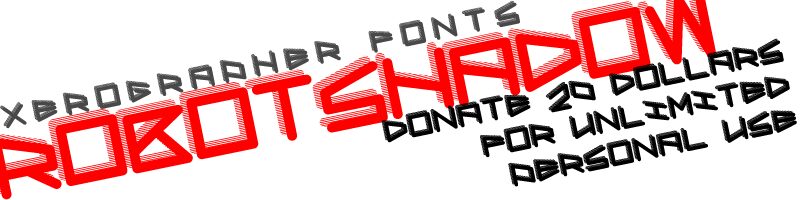
Robot Shadow by Max Infeld of Xerographer.com is a free futuristic display font with broad geometric lettering. Rounded corners soften the sharp diagonals and open triangular forms. Fine horizontal trails repeat behind the main strokes, creating a striped motion effect.
Game interfaces and electronic music posters both benefit from its fast, machine-like silhouette. It also suits science-fiction packaging and apparel graphics. The trailing lines can shape a tech brand's identity, suggesting speed or signal transmission.